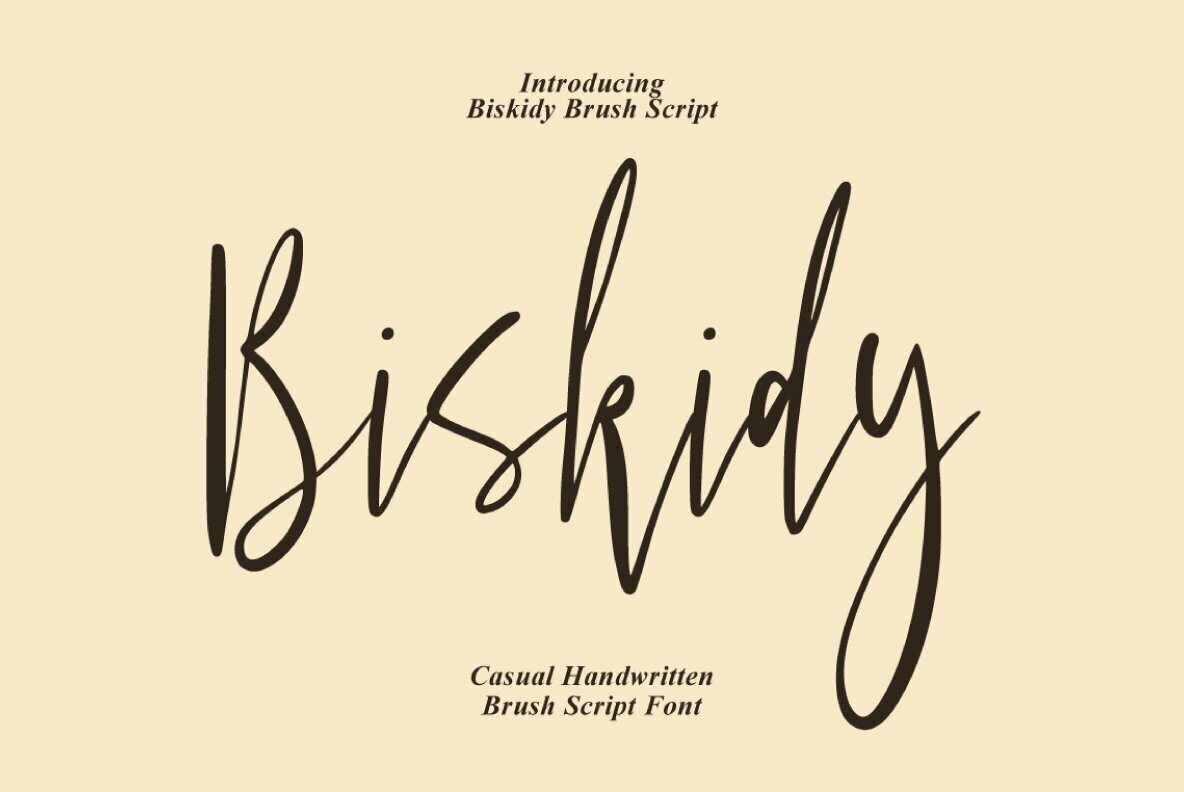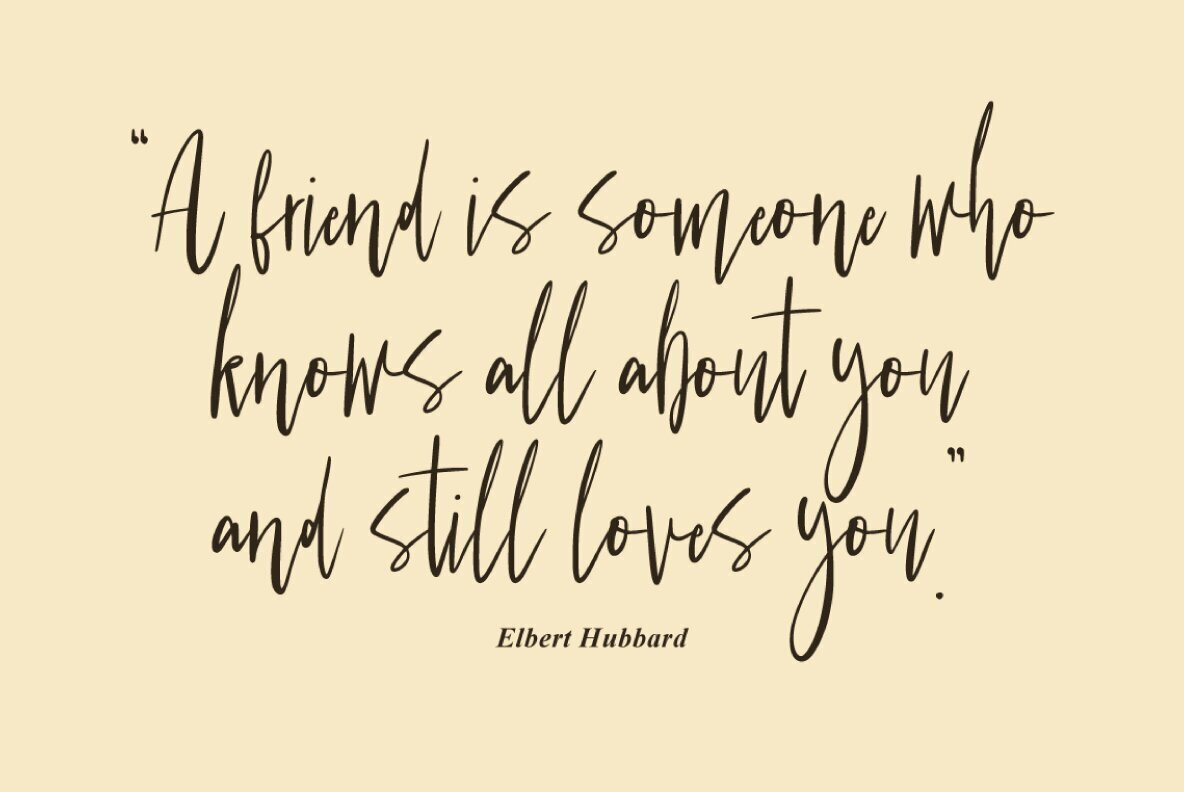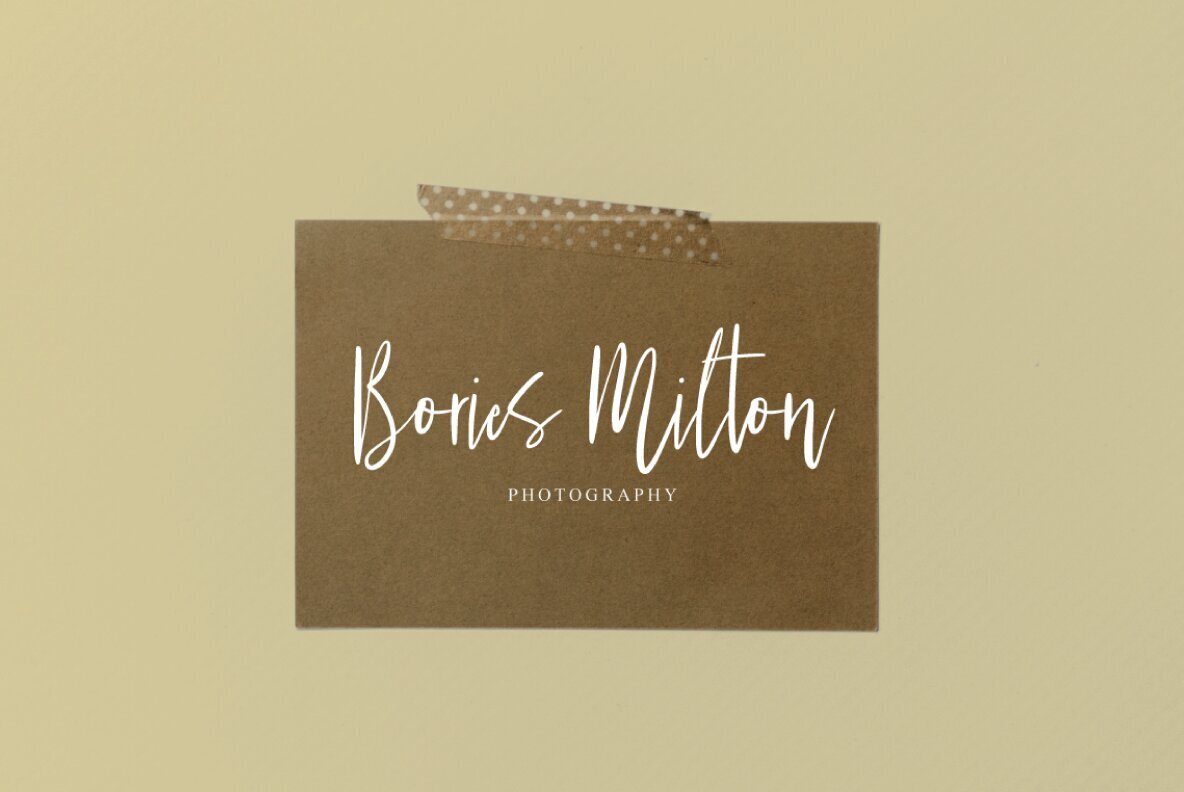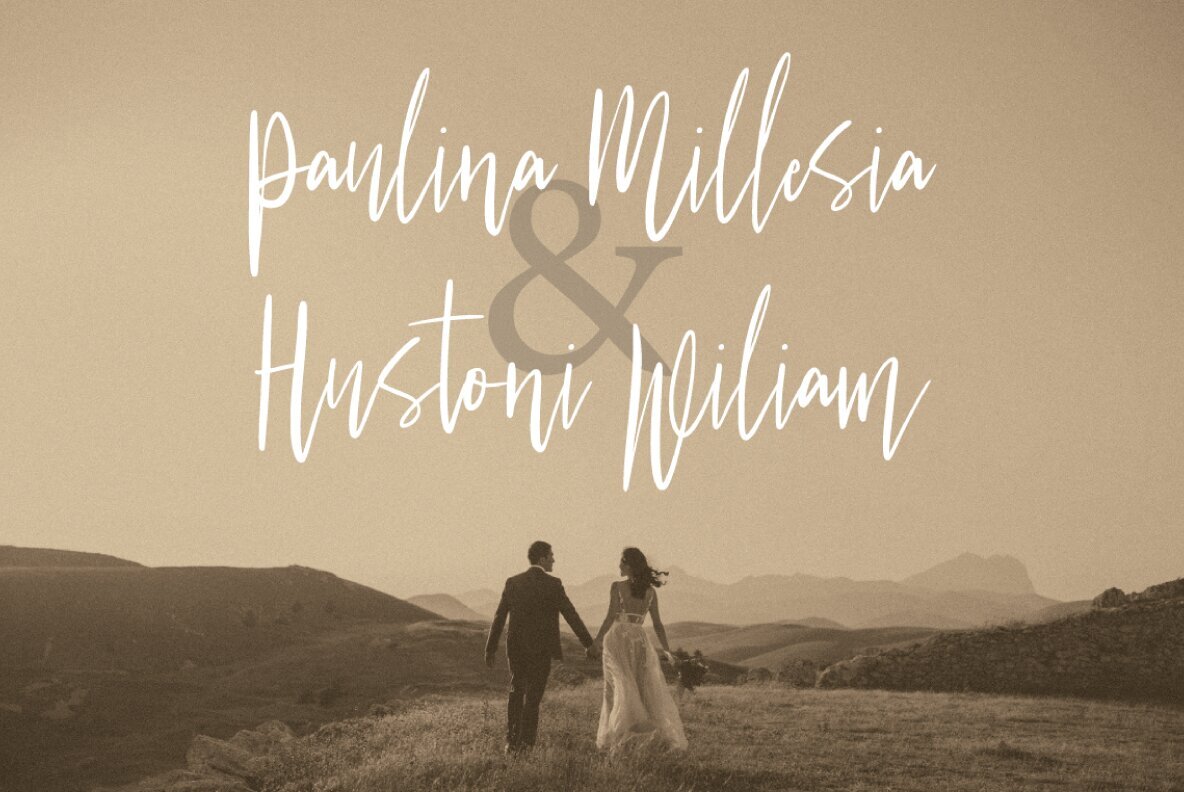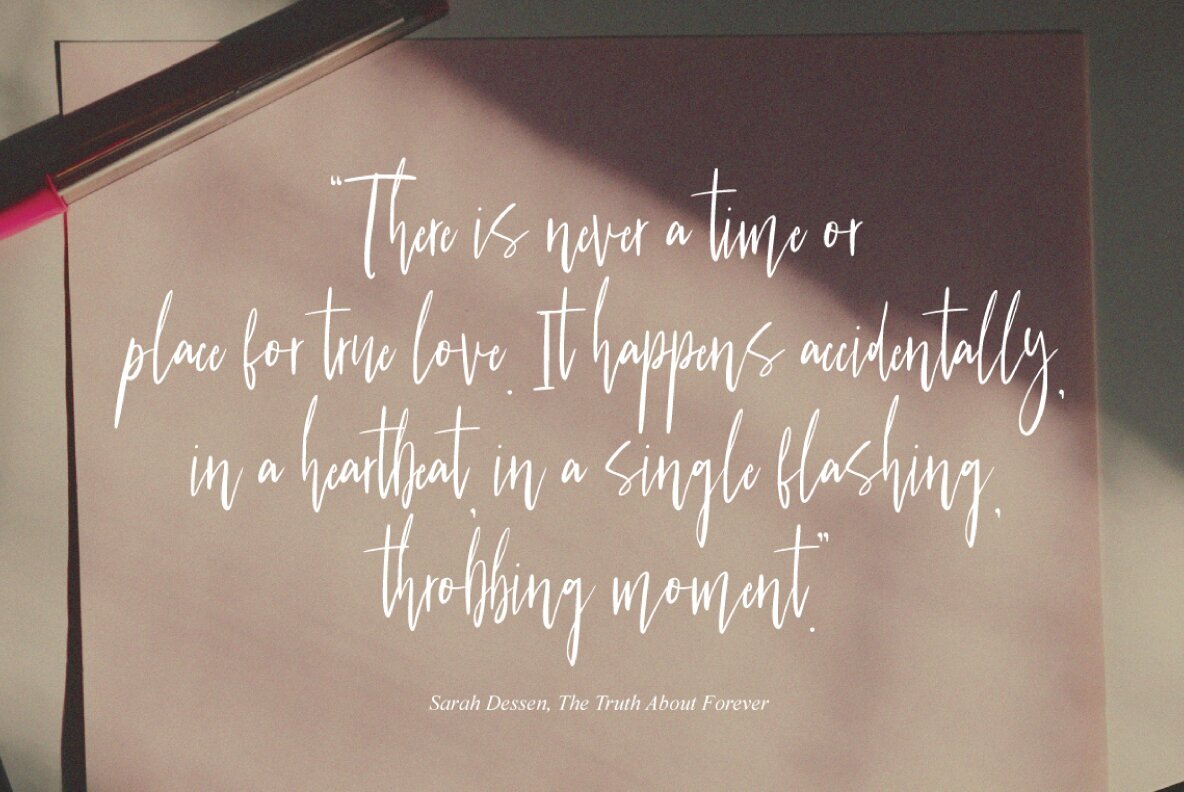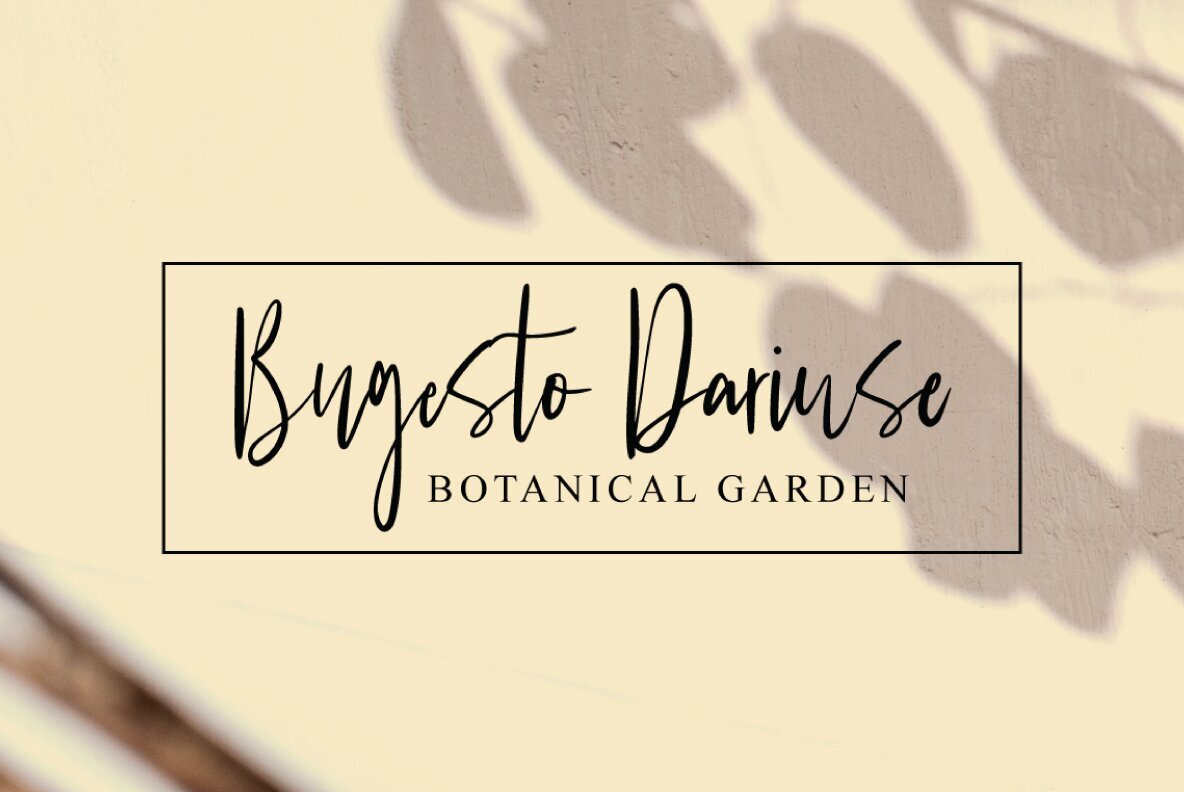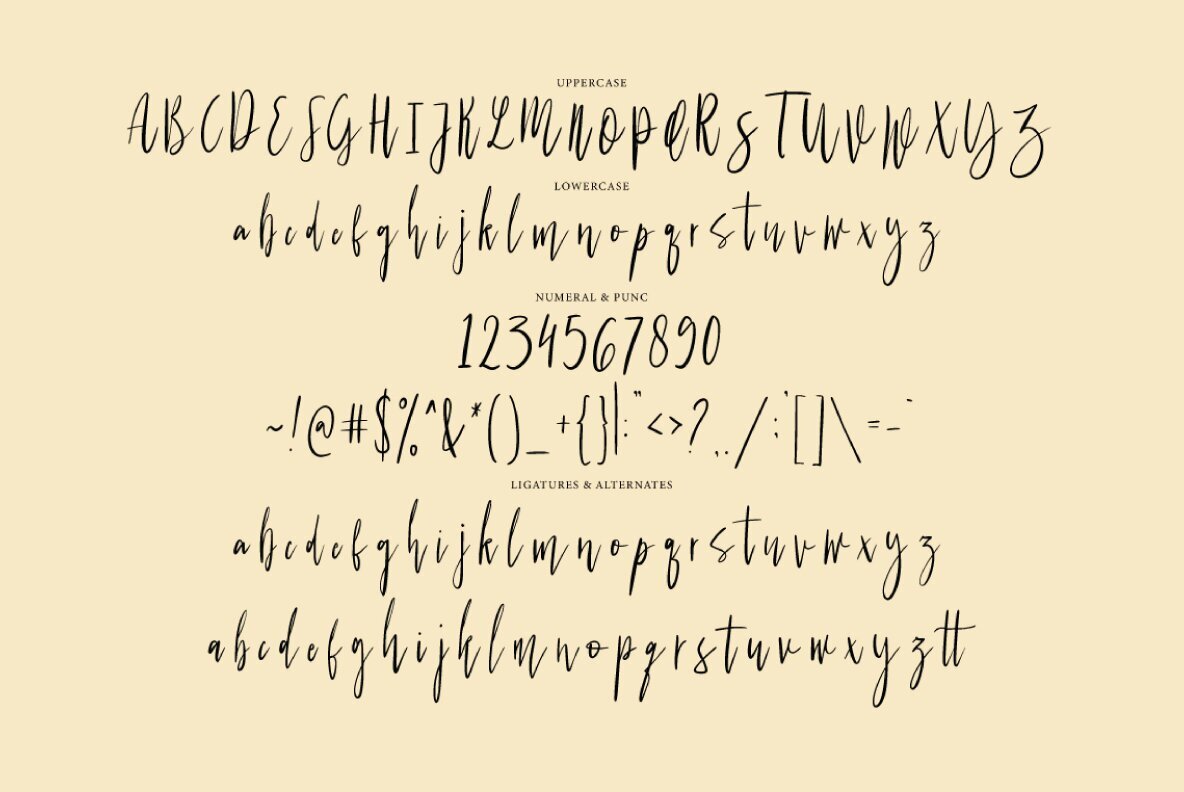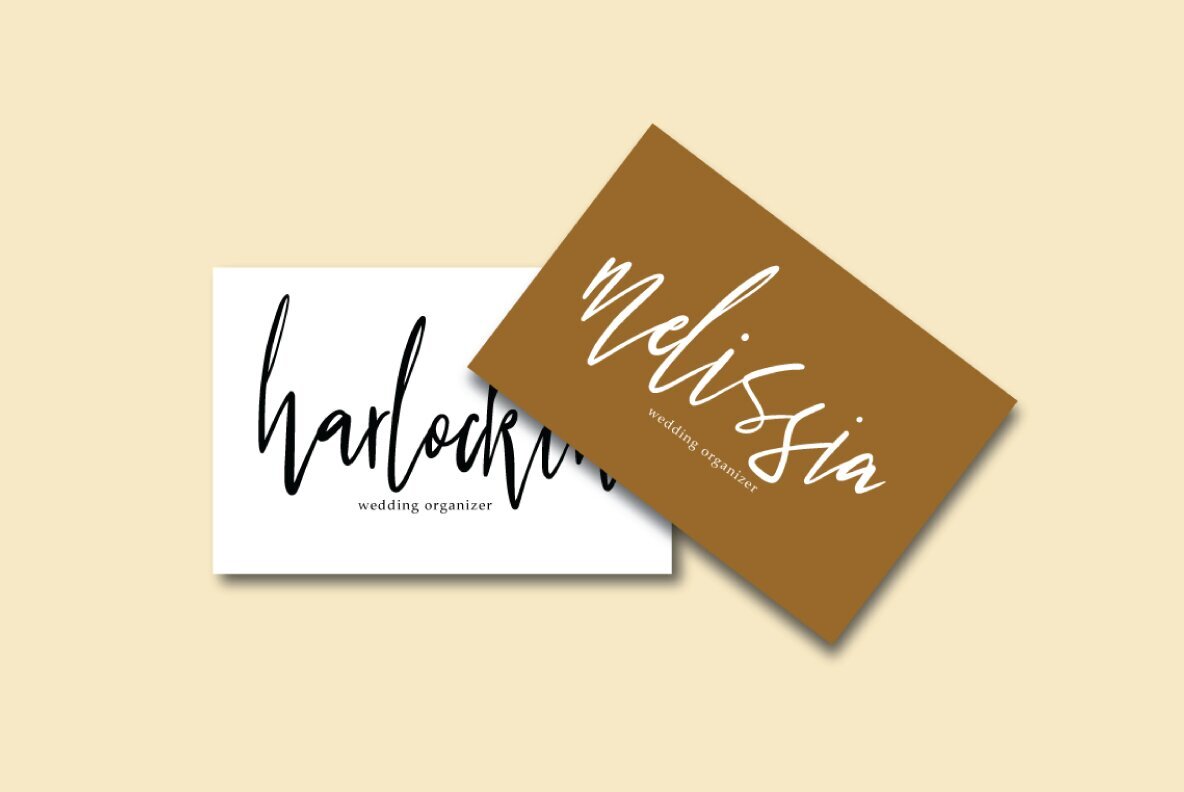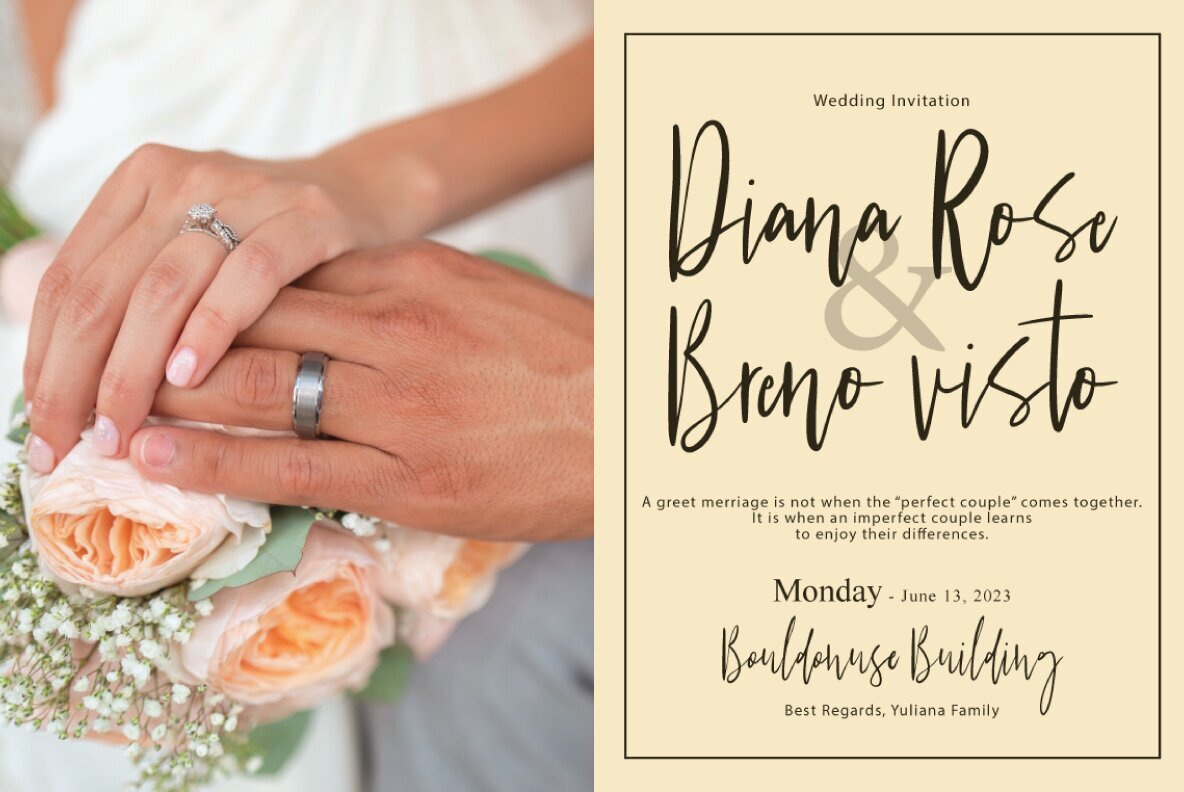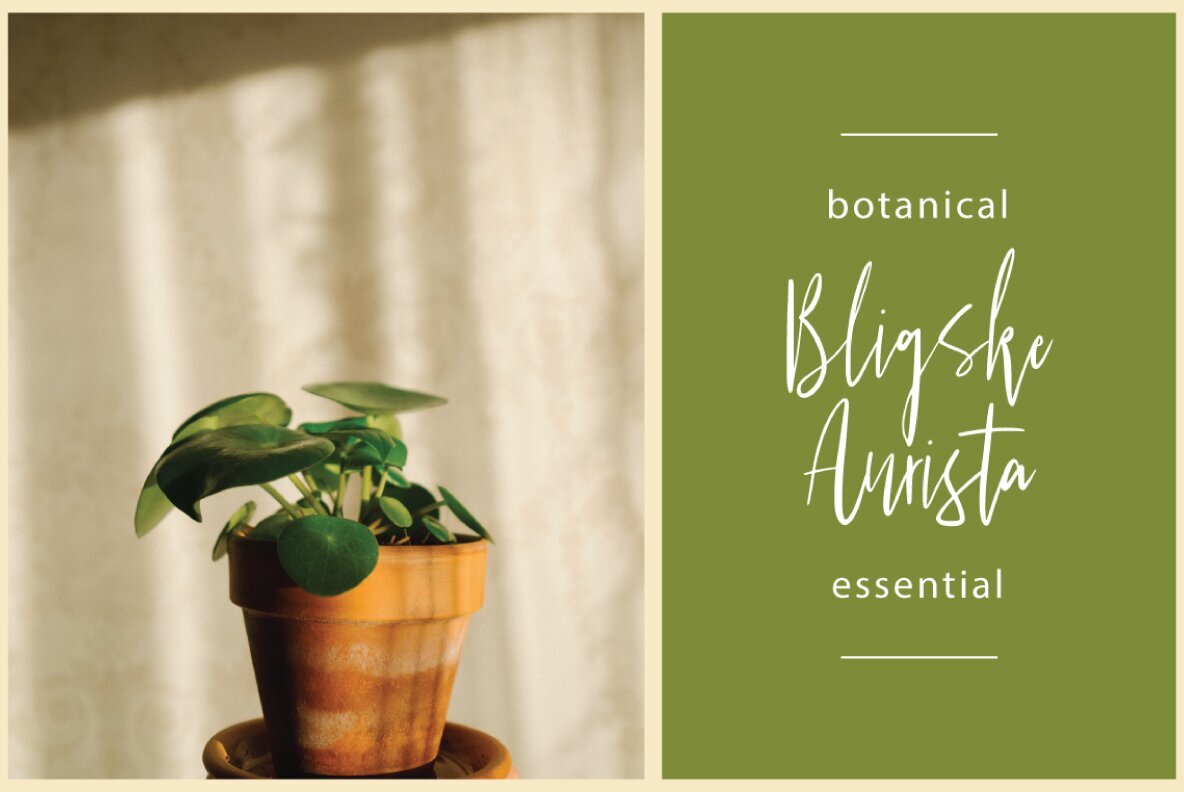
Biskidy Script Font
Biskidy Script Regular
Biskidy Script from Executype Studio brings the charm of a handmade signature style, complete with elegant decorative characters and a lively dancing baseline. Perfectly suited for invitations, greeting cards, branding, business cards, quotes, and posters, this script font adds a touch of sophistication to any design project. With over 200 glyphs, Biskidy Script offers an extensive range of alternative characters, including swashes, stylistic sets, alternates, and ligatures. Accessible in OpenType-savvy programs like Adobe Illustrator, InDesign, Photoshop, Corel Draw, and Microsoft Word, or easily via Font Book on Mac and Character Map on Windows, Biskidy Script makes it simple to unleash your creativity. Its PUA Unicode feature ensures that alternate characters are fully accessible, offering greater flexibility for designers.Biskidy Script